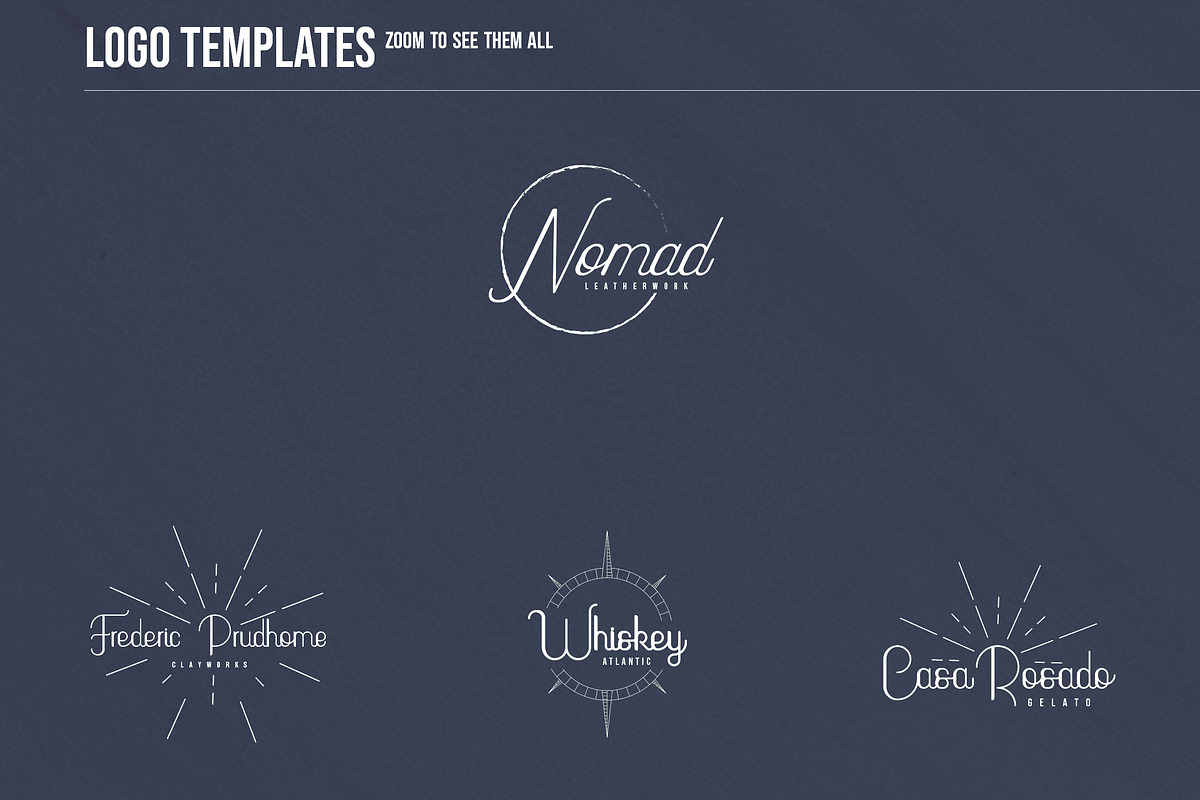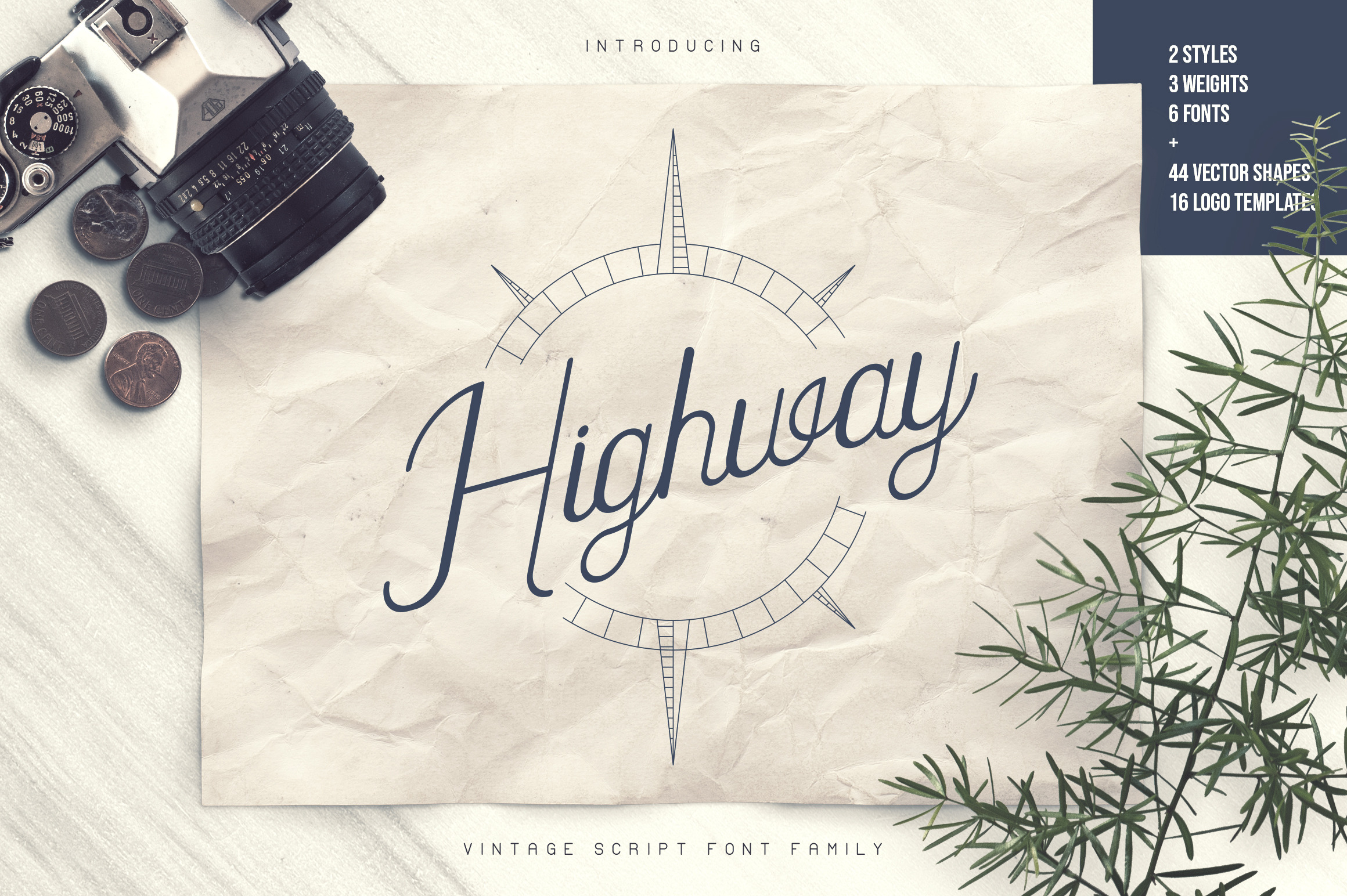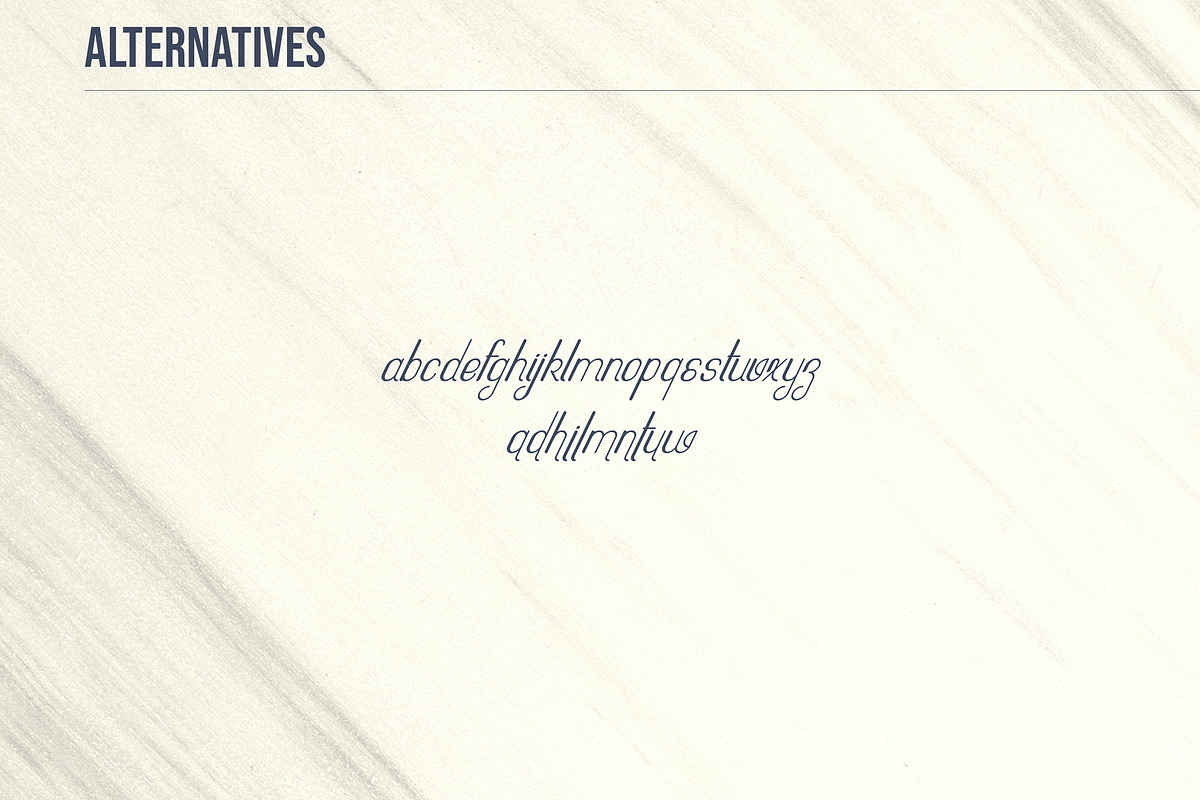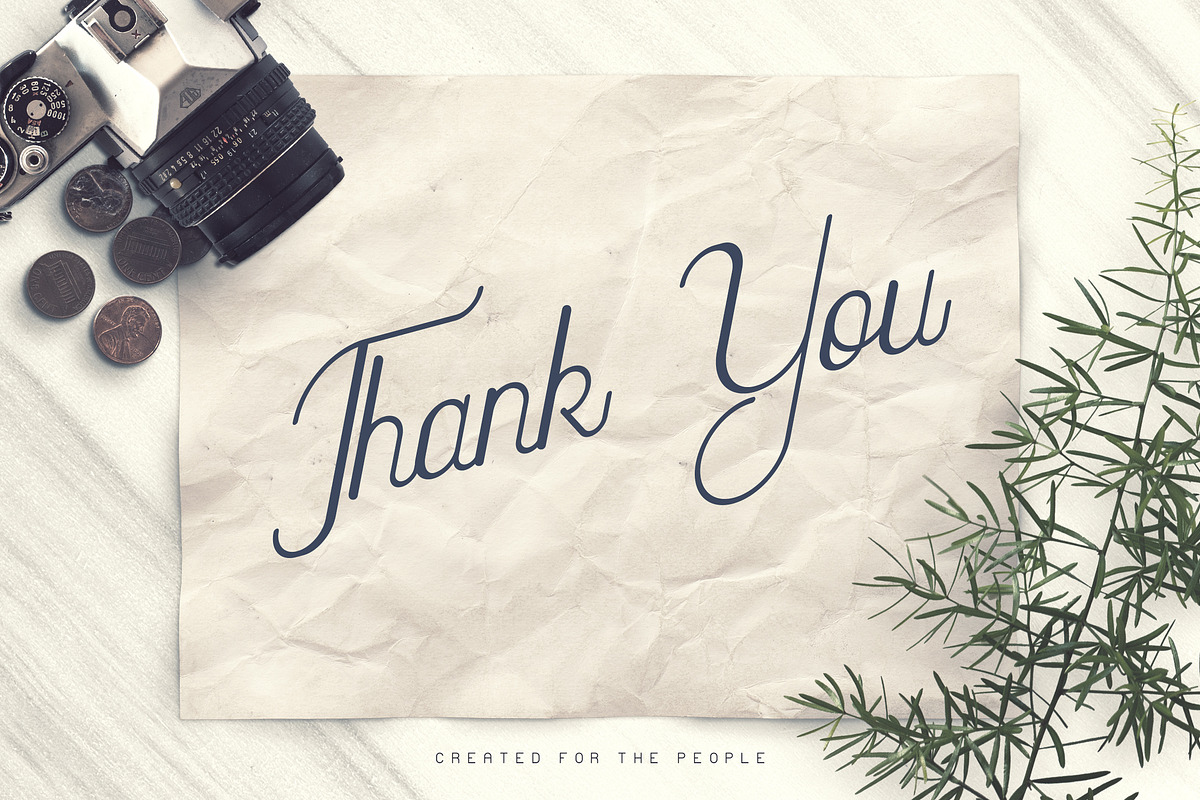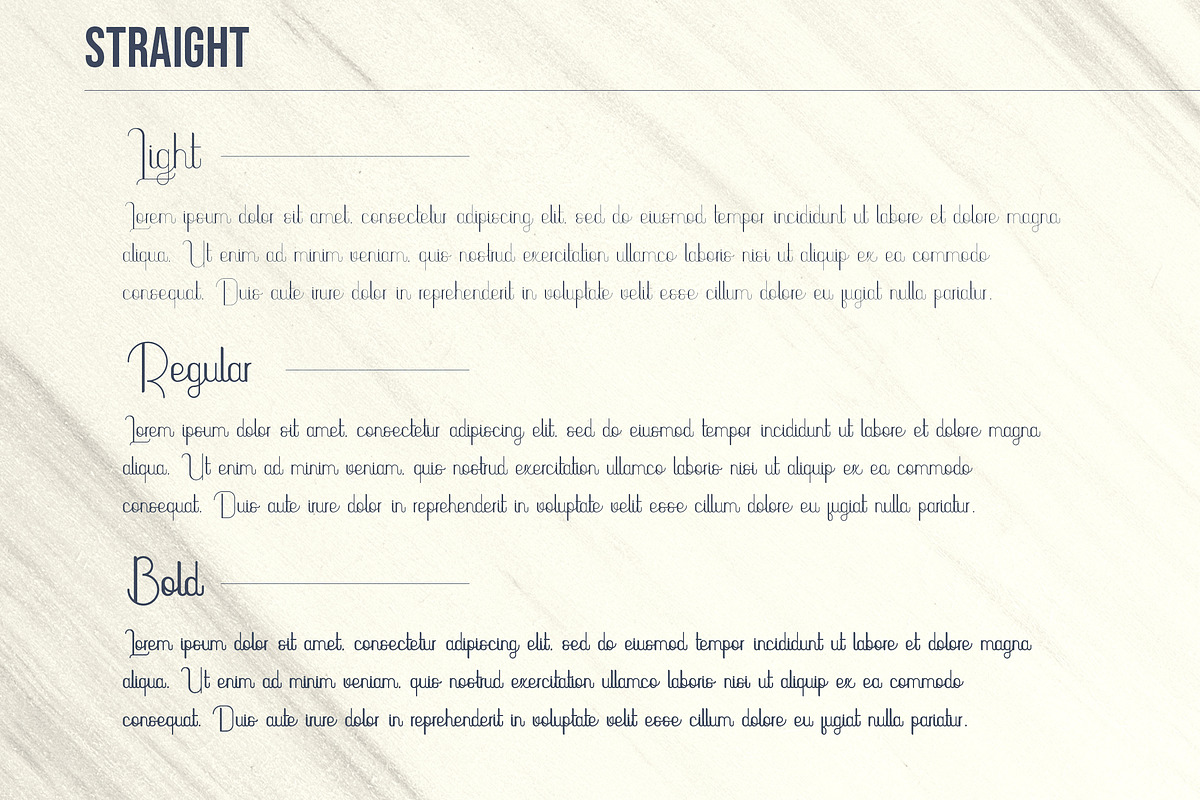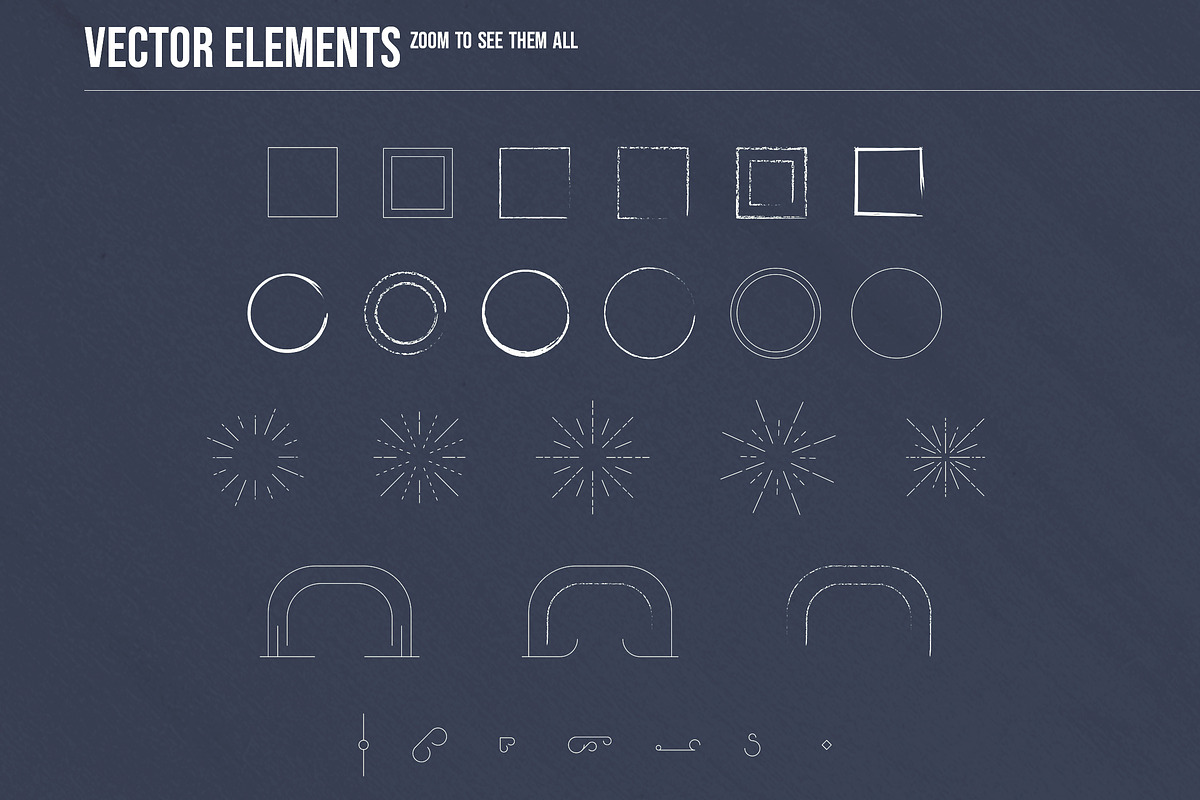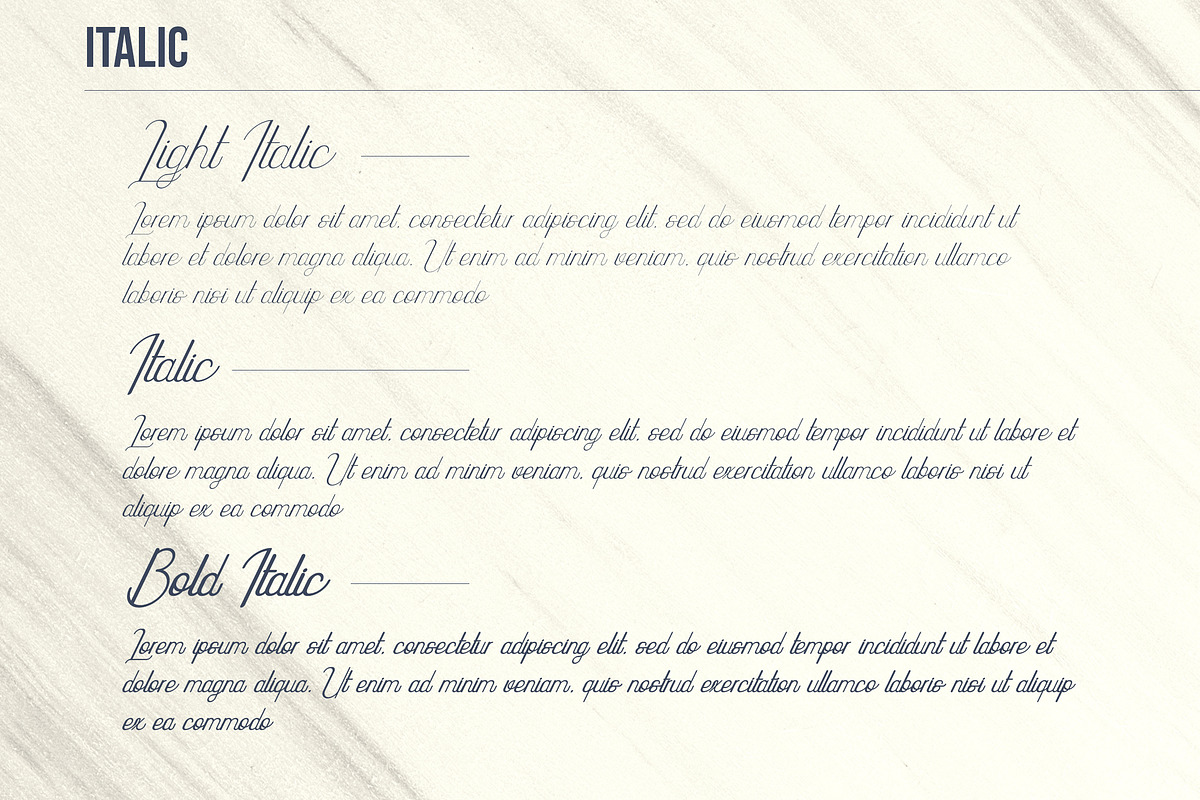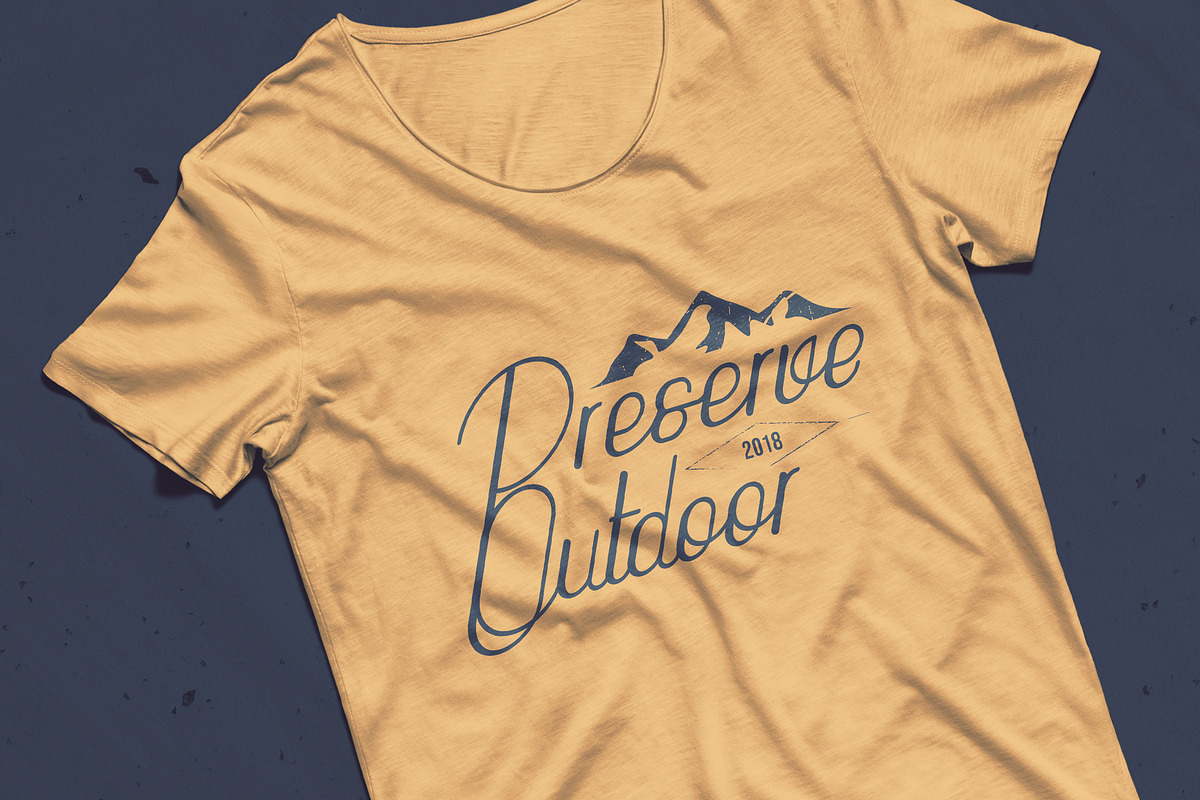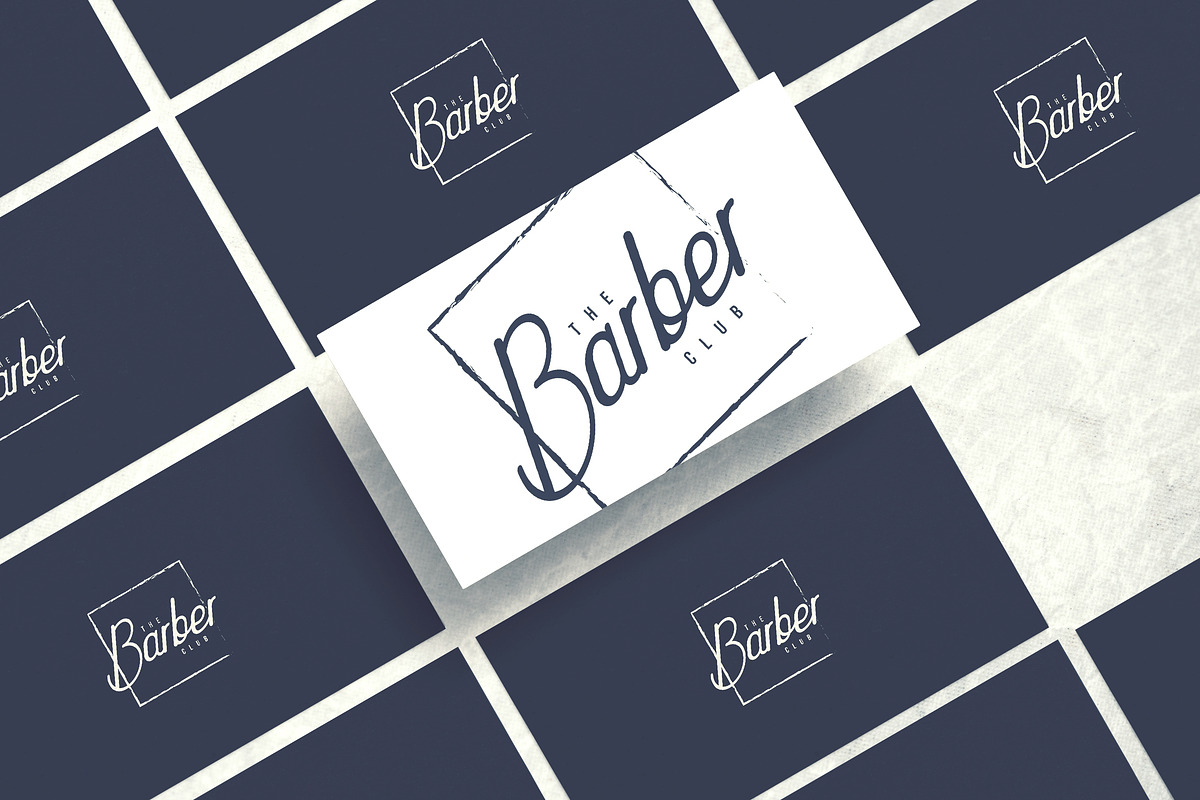
Highway - Vintage font family+Extras
Highway is elegant, clean font family with 6 font styles, 44 vector elements, 16 premade logo templates and multilingual support. It's a very versatile font that works great in large and small sizes.
Highway is perfect for branding projects, home-ware designs, product packaging, magazine headers - or simply as a stylish text overlay to any background image.
- Uppercase,lowercase,numeral,punctuation & Symbol
- Light
- Bold
- Light Italic
- Italic
- Bold Italic
- 44 Vector elements
- 16 Premade logo templates